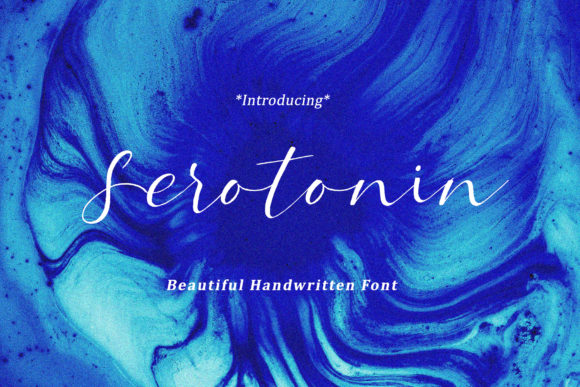
About Serotonin Font
Serotonin is an exquisite handwritten font, masterfully designed to become a true favorite. It maintains its classy calligraphic influences while feeling contemporary and fresh. Fall in love with it and bring your projects to the highest levels!